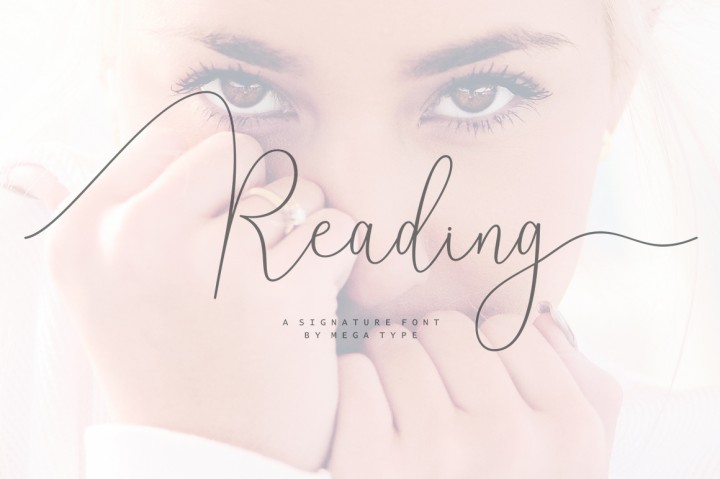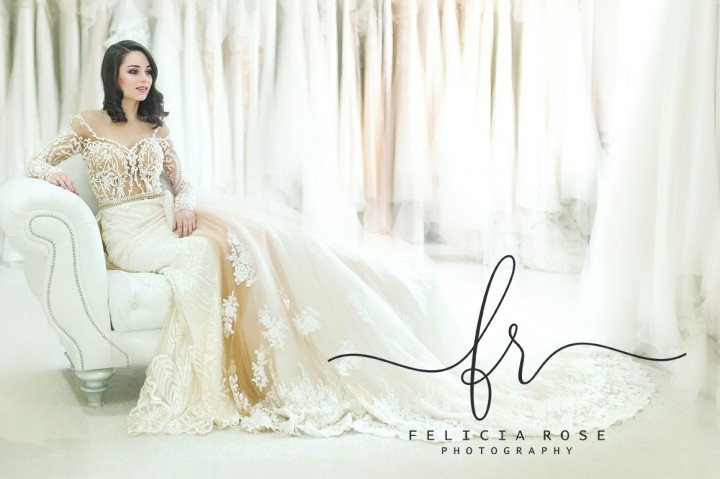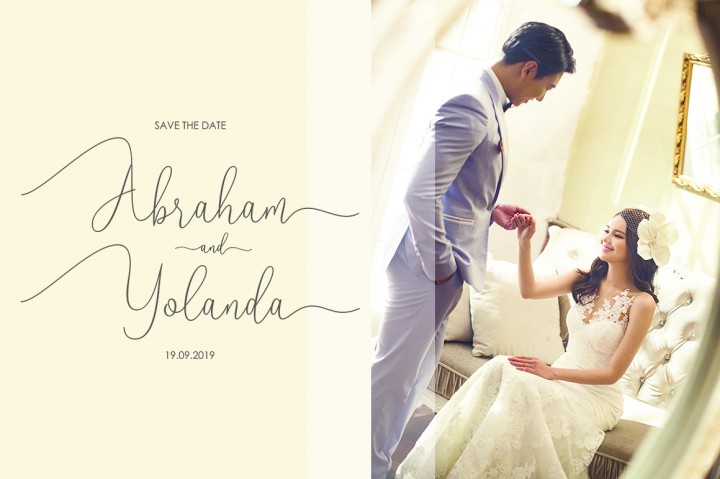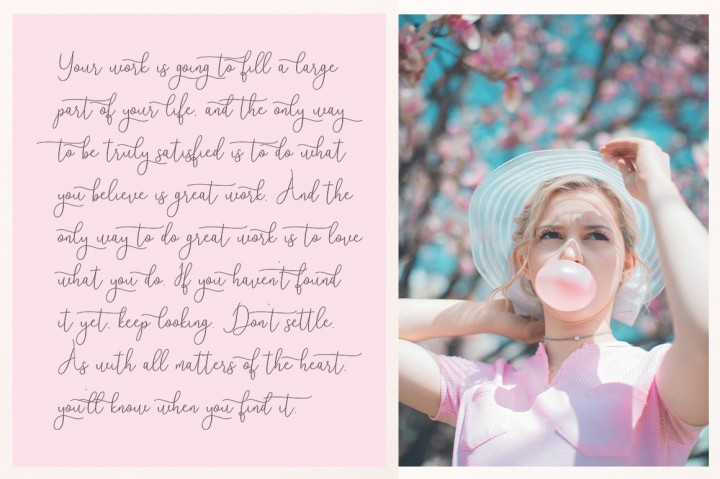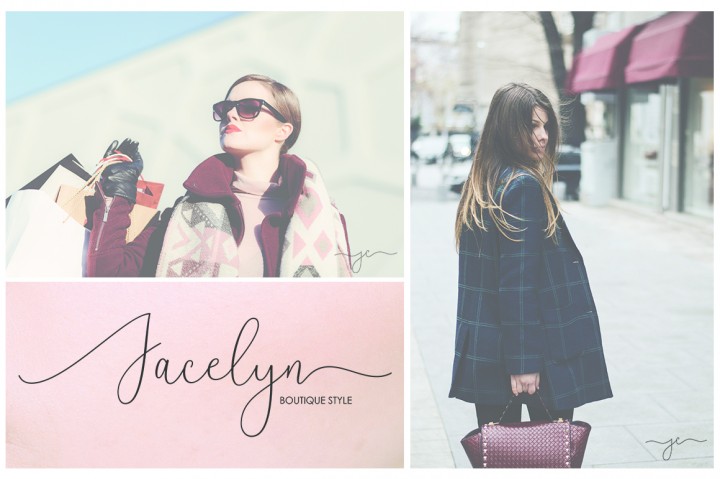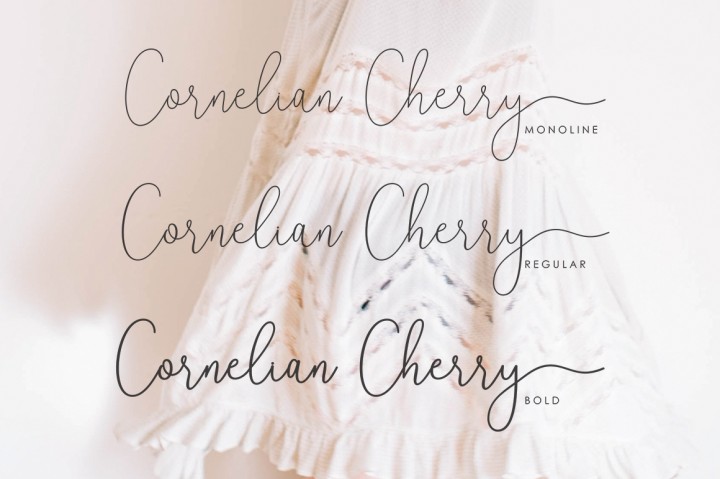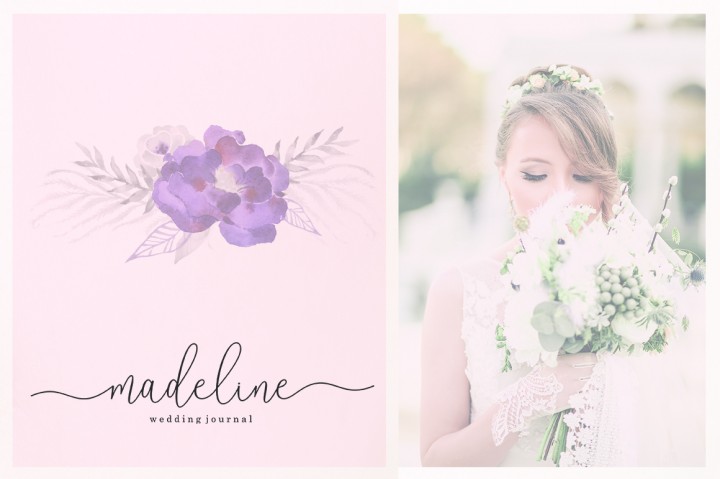
Reading Signature Font
Reading Signature Font is signature style font with stunning characters. This font is casual and pretty with swashes. Can used for various purposes. such as logo, product packaging, wedding invitations, branding, headlines, signage, labels, signature, book covers, posters, quotes and more.